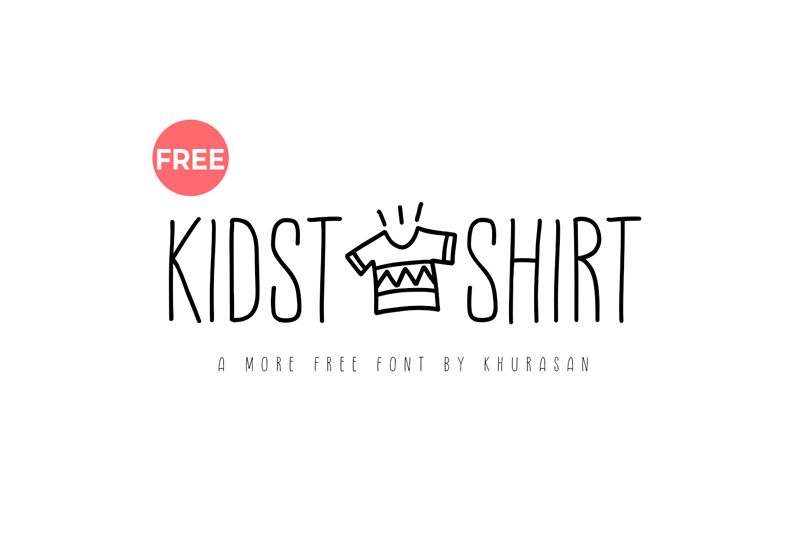
Kidstshirt
Kidstshirt, designed by Khurasan, embodies the playful spirit and creativity commonly associated with children's handwriting. Its light font weight and extra-condensed width give it a delicate yet whimsical charm that is both visually engaging and refreshingly unique. The handwritten style of Kidstshirt exudes an informal, friendly vibe that makes it perfect for invitations, logos, and packaging designs aimed at a younger audience or projects that seek to evoke a sense of nostalgia and innocence.
The font's aesthetic appeal lies in its clean lines combined with subtle irregularities that mimic the natural variations found in actual handwriting. This careful balance between precision and spontaneity ensures that Kidstshirt maintains legibility while offering an authentic handcrafted feel.
Ideal for creative endeavors where personality and approachability are key, Kidstshirt is well-suited to educational materials, children's books, casual apparel branding, or any design space where a touch of youthful exuberance is desired. With its distinctive style and appearance, this font adds character to text without overwhelming the message it seeks to convey.